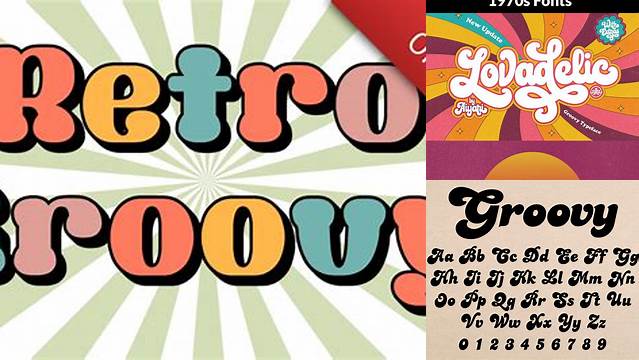
Free Groovy Retro Fonts For Your Designs
Hey guys! Are you looking to infuse your designs with a touch of vintage charm? Look no further! Groovy retro fonts are the perfect way to transport your audience back to the era of bell-bottoms, lava lamps, and psychedelic vibes. In this article, we'll dive into the world of groovy retro fonts, explore what makes them so special, and, most importantly, provide you with a curated list of free fonts to download and use in your projects. So, buckle up and get ready to groove!
What Makes a Font Groovy and Retro?
Before we jump into the freebies, let's define what exactly constitutes a groovy retro font. These fonts draw inspiration from the design styles prevalent in the mid-20th century, particularly the 1960s and 1970s. Think of the iconic logos and posters from that era – the bold, rounded letterforms, the playful curves, and the overall sense of optimism and fun. These fonts evoke a sense of nostalgia and can add a unique flair to your designs.
Groovy fonts often feature:
- Rounded shapes: Soft, curved edges are a hallmark of retro fonts, lending them a friendly and approachable feel.
- Bold weights: Thick, heavy letterforms were popular in retro designs, making a strong visual impact.
- Serif or sans-serif styles: Both serif and sans-serif fonts can be retro, depending on their specific characteristics. Serif fonts might have exaggerated serifs or unique terminal shapes, while sans-serif fonts might feature rounded corners or unusual proportions.
- Handwritten or script styles: Fonts that mimic the look of hand-lettering or calligraphy were also common in retro designs, adding a personal and authentic touch.
- Decorative elements: Some retro fonts incorporate swashes, ligatures, or other decorative elements to enhance their visual appeal.
Retro fonts are more than just a design choice; they're a way to communicate a specific mood and feeling. They can evoke feelings of nostalgia, excitement, and playfulness, making them ideal for projects that aim to capture the spirit of a bygone era. Whether you're designing a poster for a retro-themed party, creating a logo for a vintage-inspired brand, or simply adding a touch of personality to your website, groovy retro fonts can help you achieve your desired aesthetic.
- Free font websites: Websites dedicated to offering free fonts, such as Fontesk and FreeFontsFamily, often have a dedicated section for retro or vintage fonts. These websites curate a selection of fonts from various sources, making it easy to browse and download a variety of styles. Be sure to check the license information carefully, as some fonts may only be free for personal use.
Top Free Groovy Retro Fonts to Download
Okay, guys, let’s get into the good stuff. Here are some of my favorite free groovy retro fonts that you can download and start using today. Each of these fonts brings a unique flavor of retro style, so there’s something for everyone!
- Luckiest Guy: This font is a classic example of a bold, rounded retro font. Its playful curves and heavy weight make it perfect for headlines, posters, and logos. Luckiest Guy exudes a friendly and approachable vibe, making it ideal for projects that aim to capture a sense of fun and nostalgia. Its rounded terminals and slightly condensed letterforms give it a distinctive character that is both retro and contemporary. You can use it in various design contexts, such as creating eye-catching social media graphics, designing retro-themed invitations, or adding a touch of vintage charm to your website.